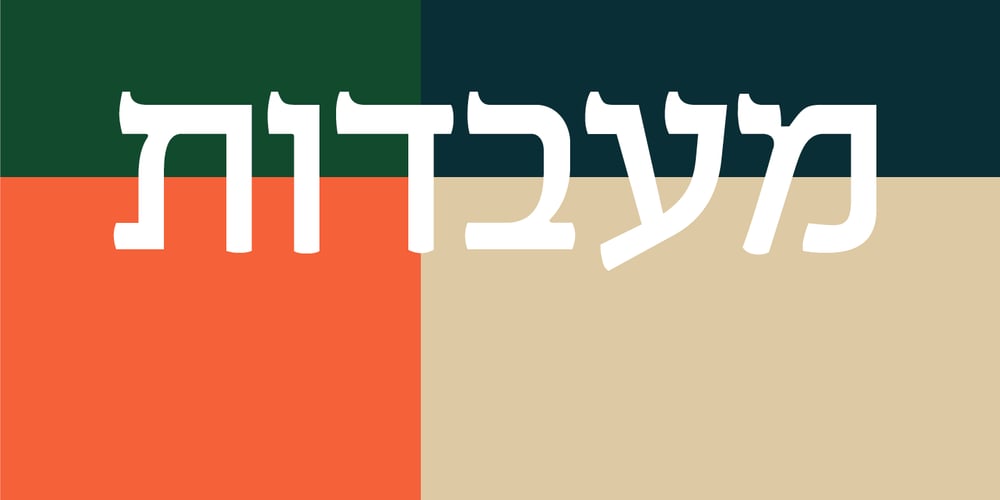
Bracha MF
Bracha MF font
Bracha MF Font Family was designed by Eliyahu Fried and published by Masterfont. Bracha MF contains 4 styles and family package options. Inspired by old scribes and tombstones, this font is unique by its flow and contrast, enabling traditional typeface gain a new and clear flow and rhythm.